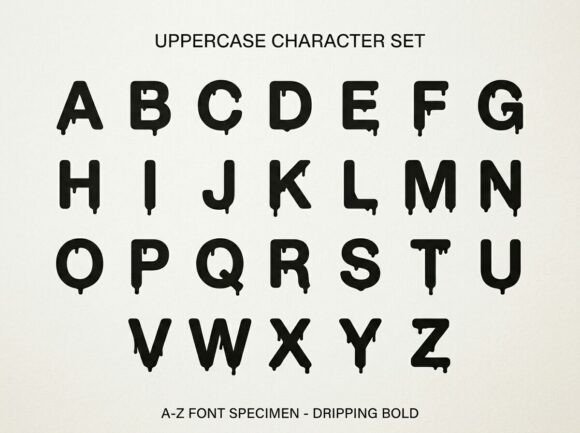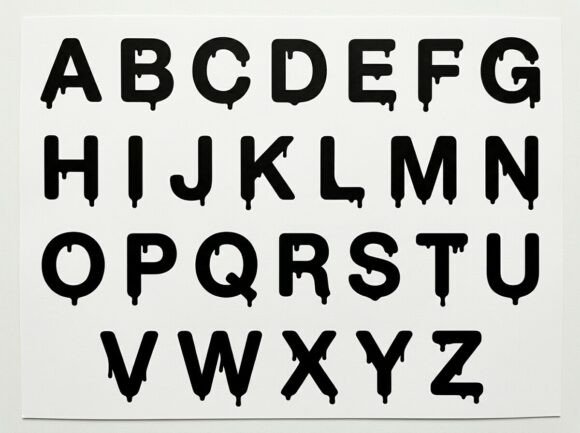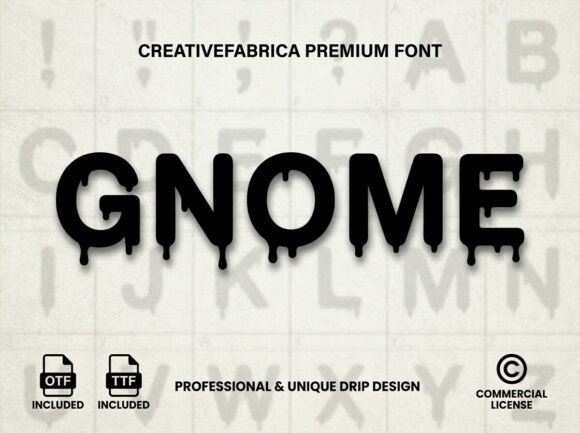
Introducing Gnome Font: A Stunning Decorative Display Font
Are you tired of using the same old fonts for your creative projects? Look no further! Gnome Font is a unique and artistic display font that’s designed to grab attention and make your work stand out. With its strong visual personality and decorative elements, this font is perfect for creators who want to add a touch of elegance and sophistication to their designs.
What Makes Gnome Font Special?
Gnome Font is a carefully crafted decorative display font that’s specifically designed for high-impact headlines, logos, and decorative initials. Each letter is a work of art, featuring unique artistic elements that will make your designs shine. Whether you’re a graphic designer, a crafty DIY enthusiast, or a marketing professional, this font is sure to inspire your creativity.
Key Features of Gnome Font
- ALL-CAPS (Uppercase Only) Display Typeface: Gnome Font is specifically designed for high-impact headlines, logos, and decorative initials where every letter is a work of art. Please note that it does not include lowercase letters.
- Unique Artistic Elements: Each letter features unique artistic elements that will make your designs stand out from the crowd.
- Strong Visual Personality: Gnome Font has a strong visual personality that’s perfect for creators who want to break away from the ordinary.
- Versatile: This font is versatile enough for bold headlines, artistic logos, and creative packaging, while maintaining a professional and polished finish.
Use Cases for Gnome Font
Gnome Font is perfect for a variety of creative projects, including:
- Headlines and Titles: Use Gnome Font to create eye-catching headlines and titles for your blog posts, articles, and social media posts.
- Logos and Branding: Create a unique and memorable logo for your business or brand with Gnome Font.
- Packaging Design: Add a touch of elegance and sophistication to your product packaging with Gnome Font.
- Invitations and Stationery: Use Gnome Font to create beautiful and artistic invitations, greeting cards, and stationery.
Tips for Using Gnome Font
Here are some tips for getting the most out of Gnome Font:
- Use it sparingly: Gnome Font is a decorative display font, so use it sparingly to add emphasis and impact to your designs.
- Pair it with a simple font: Pair Gnome Font with a simple font to create contrast and visual interest in your designs.
- Experiment with colors and textures: Experiment with different colors and textures to add depth and dimension to your designs.